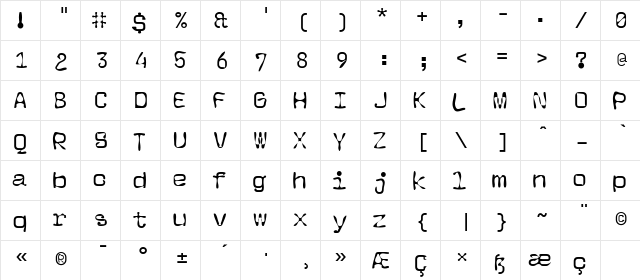
Luggage Weird
| Style | Weird |
| Foundry | JD |
| Designer | Jules Durand |
Design Context for Luggage Typeface
Luggage takes a measured approach to typography — its balanced proportions and neutral character make it a reliable workhorse for both digital and print work.